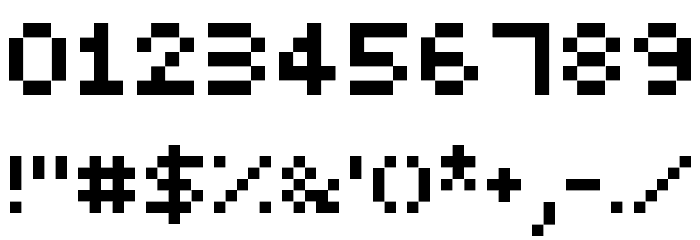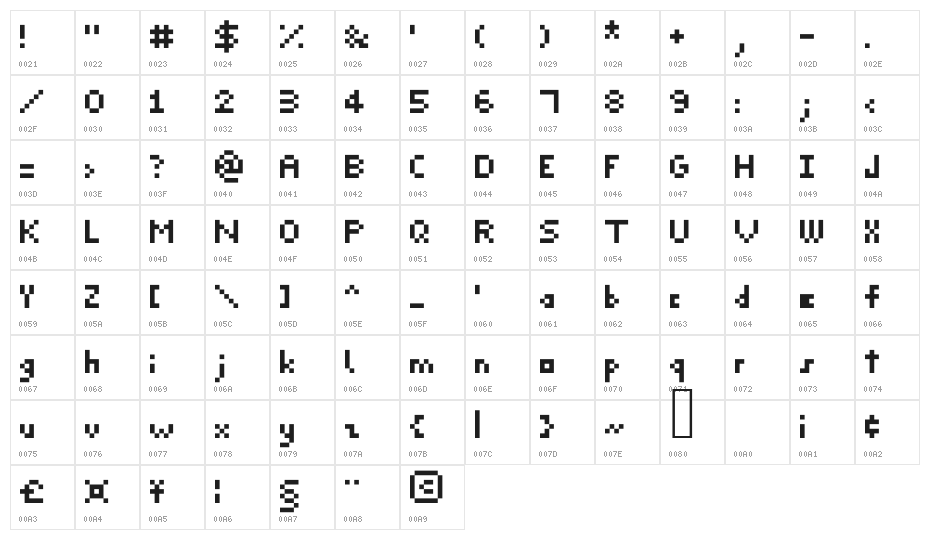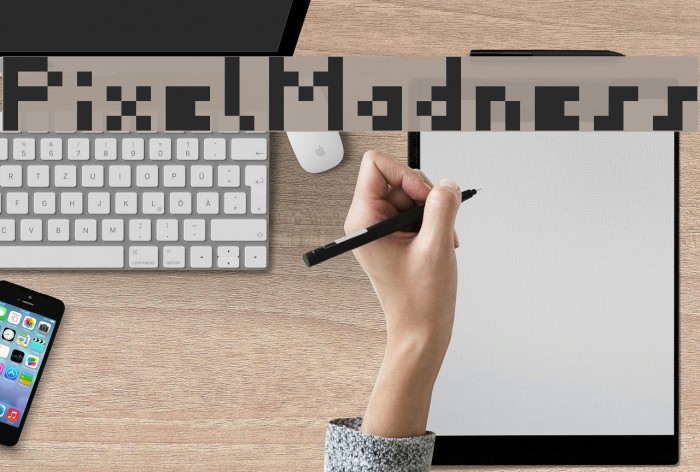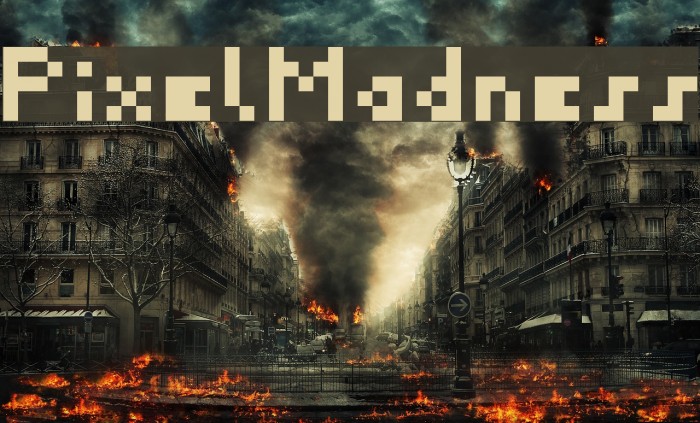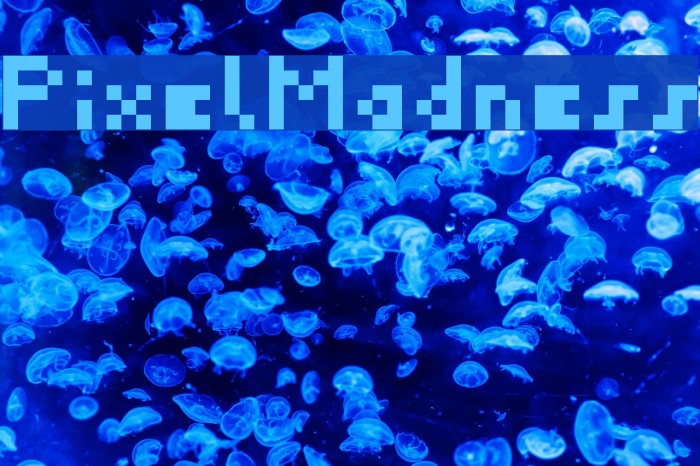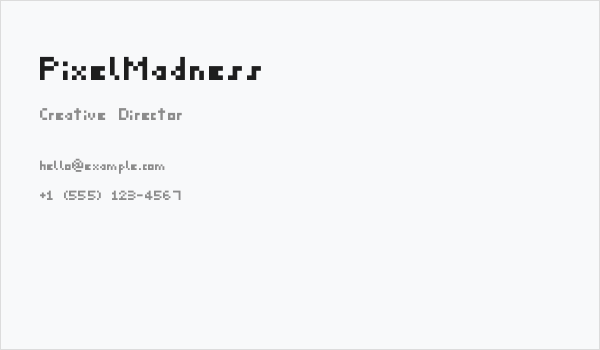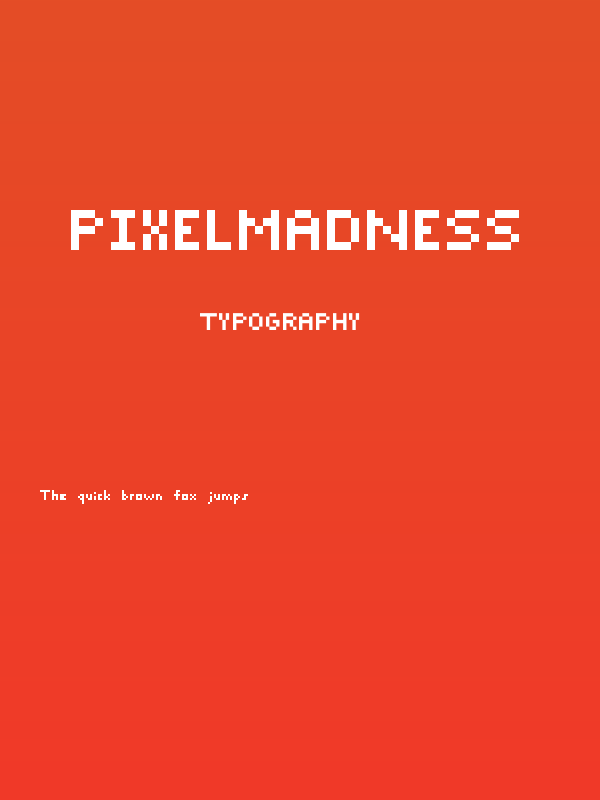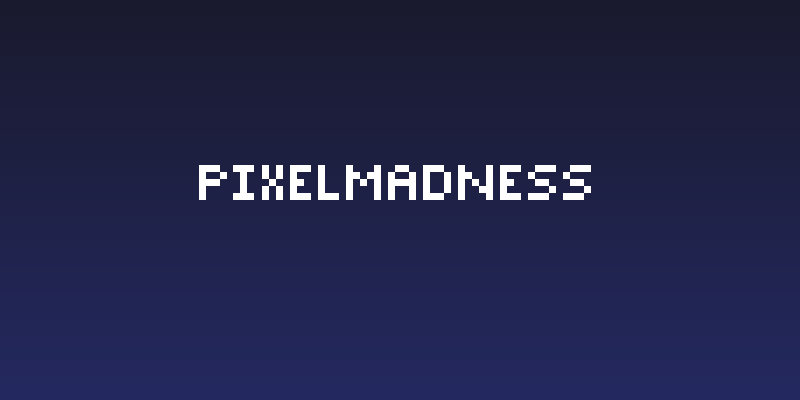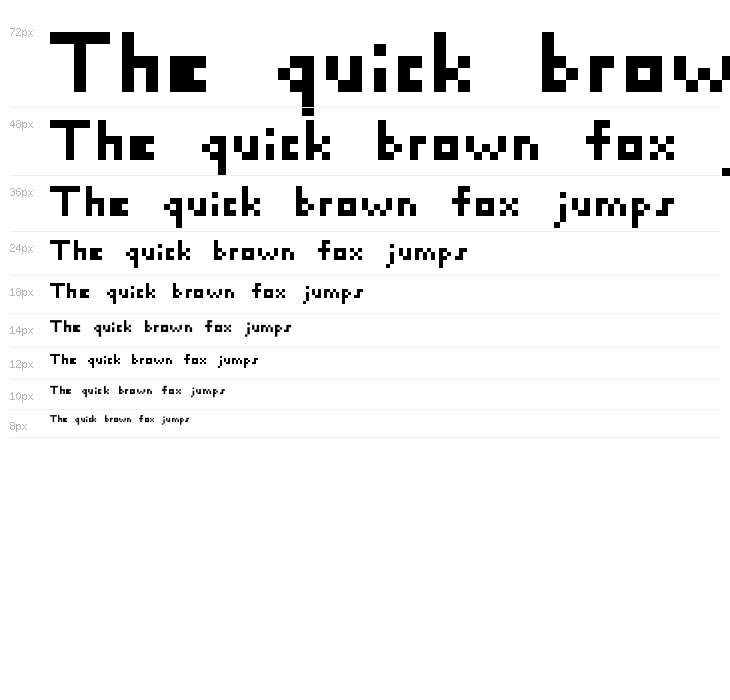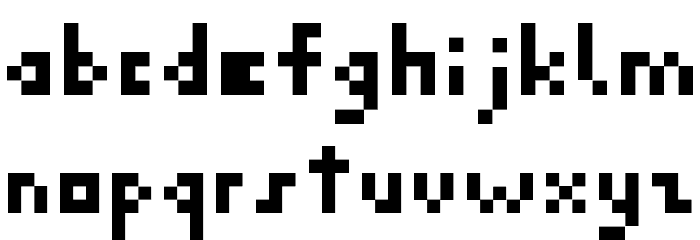
PixelMadness Font
PixelMadness Description
This font features a distinct pixelated style reminiscent of early digital displays and retro video games. Each character is constructed with a grid-like precision, giving it a blocky and geometric appearance. The uppercase and lowercase letters maintain a consistent height, while the numerals and special characters follow the same pixelated design. The font's simplicity and uniformity make it highly legible, even at smaller sizes. Its nostalgic aesthetic is perfect for projects that aim to evoke a sense of vintage digital technology or retro gaming culture.
| Proposed Projects | Ideal for retro video game designs, digital art projects, tech-themed posters, and nostalgic branding. |